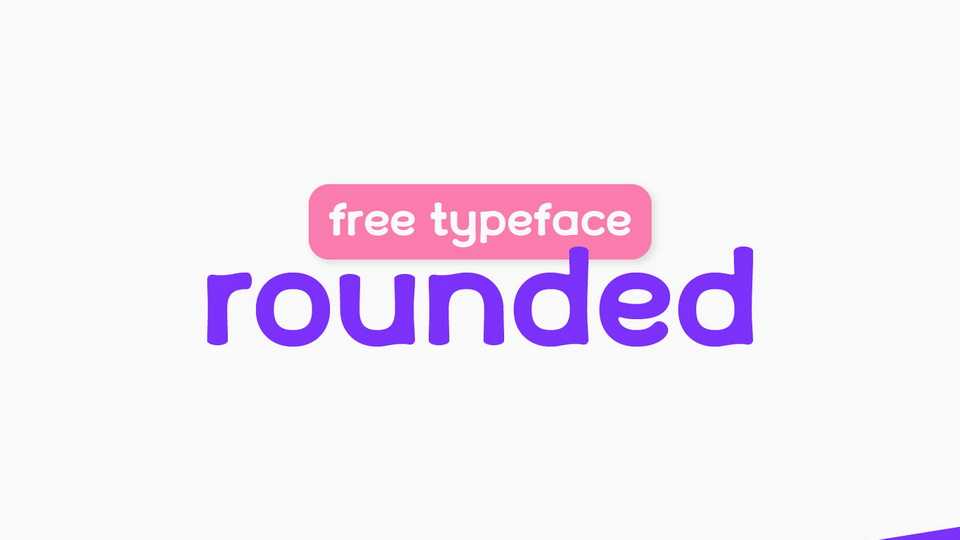
Download Rounded font, a positive and friendly sans serif typeface based on rounded shapes. Rounded font is great for headlines and logo design.
Designer: Igor Stepanchenko